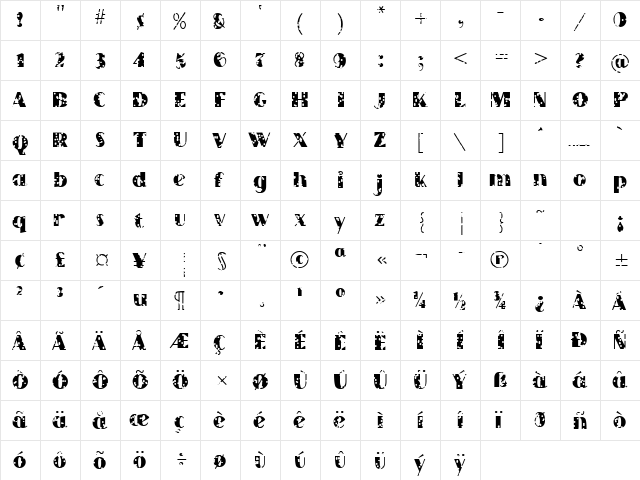
GrandecortHoly Regular
Design Context for GrandecortHoly Typeface
GrandecortHoly is a composed and adaptable typeface that performs quietly and consistently across a wide range of design contexts.